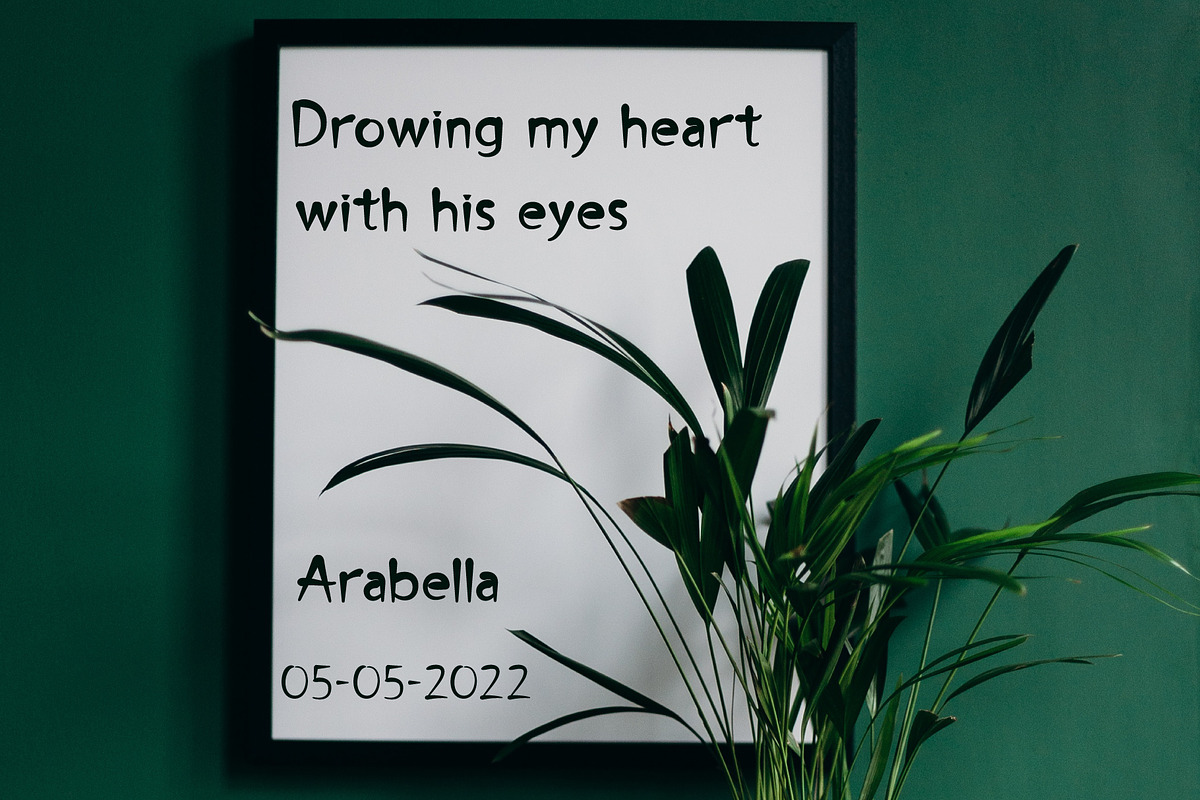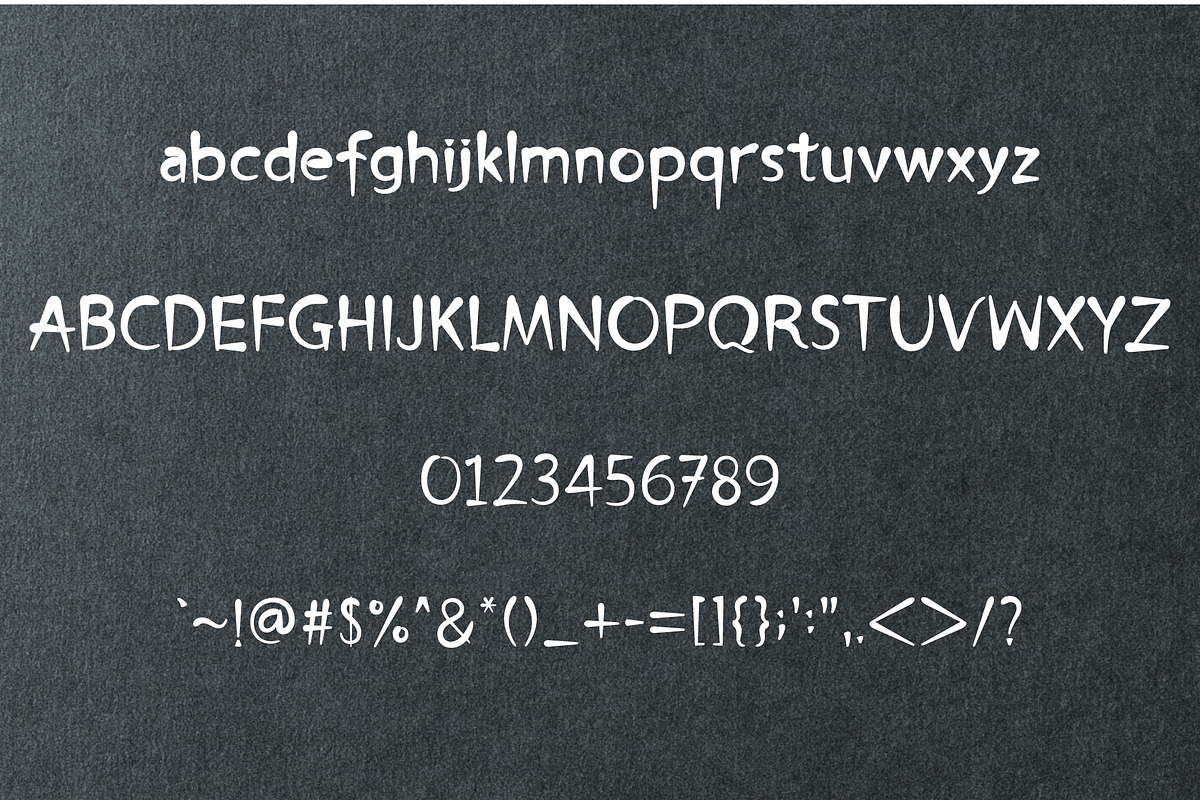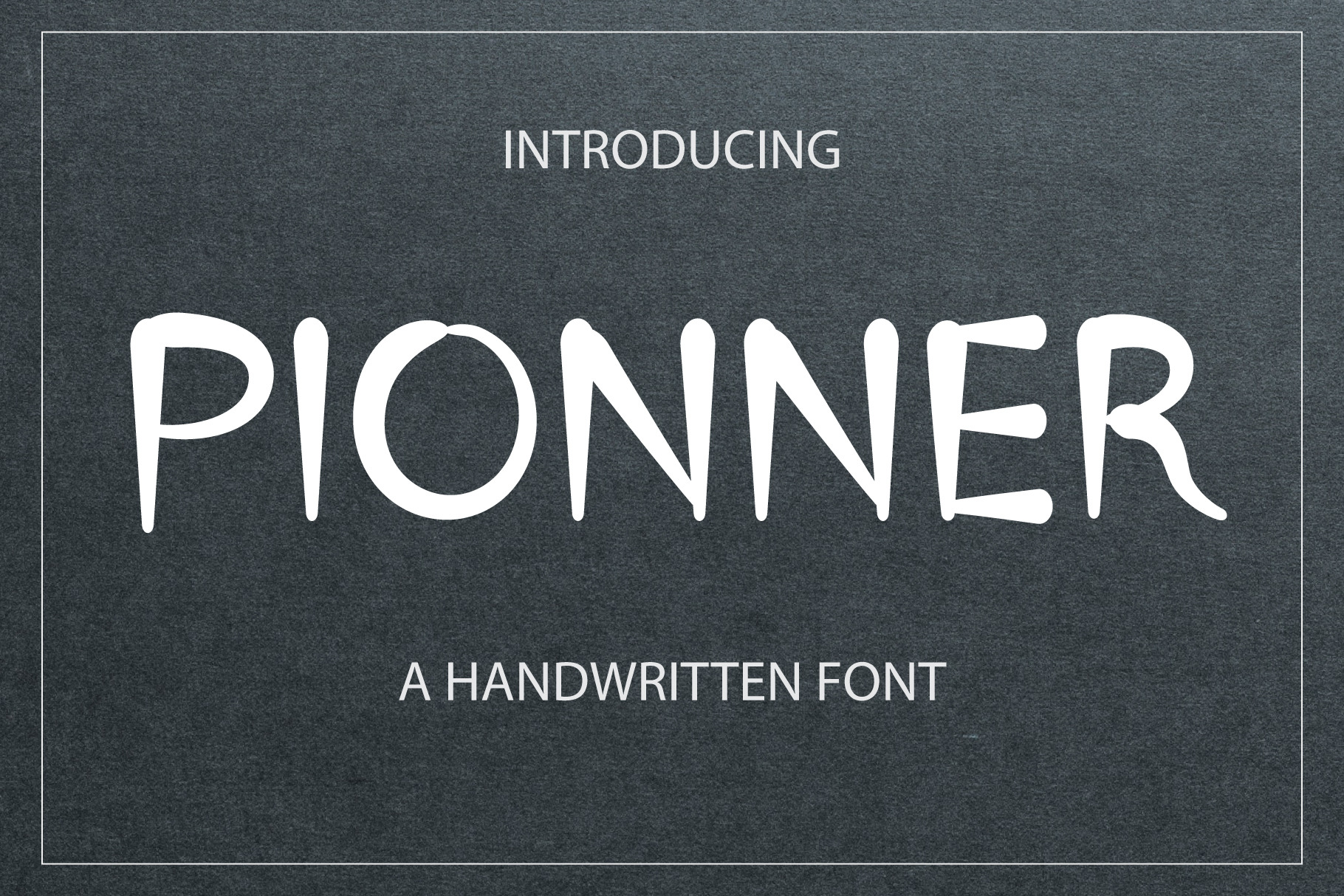
Pionner – Natural Handwritten Font
Say hello to Pionner – a naturally expressive handwritten font that blends simplicity with bold character. Inspired by organic handwriting and designed with a free-flowing style, Pionner gives your projects a friendly, creative, and authentic voice.
Whether you’re designing for cartoons, comics, entertainment content, or professional branding, Pionner adds a personal and approachable feel to every word. This font is perfect for creators who want their text to feel hand-drawn, spontaneous, and full of personality.
YouTube thumbnails and titles
**Instagram, Facebook, and Twitter content
Comic books and cartoon dialogue**
Branding and business names
TV shows and entertainment media
Product names and packaging
Creative posters and digital art
Fun and casual headlines
Pionner stands out with its relaxed, handwritten lines—ideal for capturing attention while still feeling natural and modern.
Uppercase & lowercase letters
Numbers and punctuation
Smooth, hand-drawn character strokes
Optimized for digital and print media
Bring warmth and originality to your next project with Pionner– the perfect balance of casual charm and creative impact.